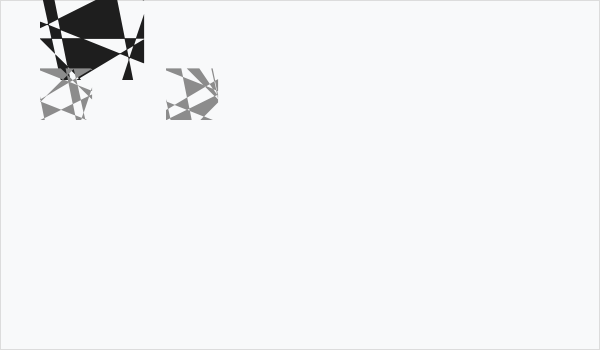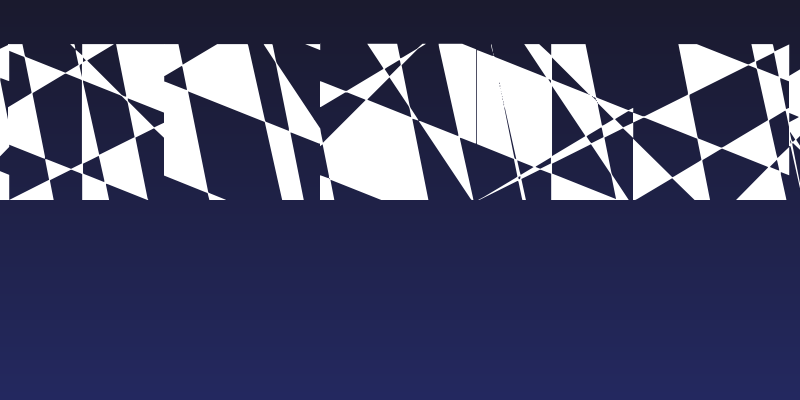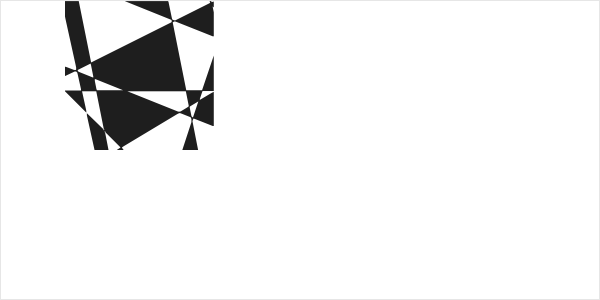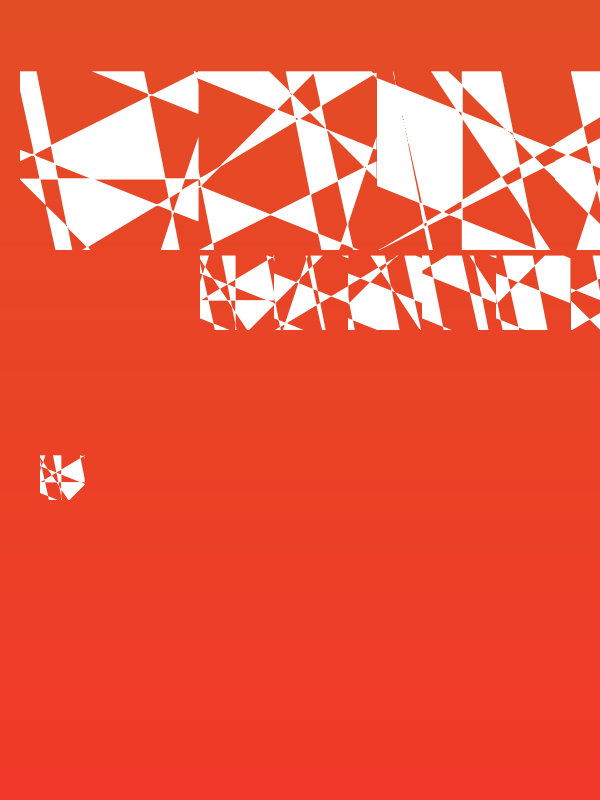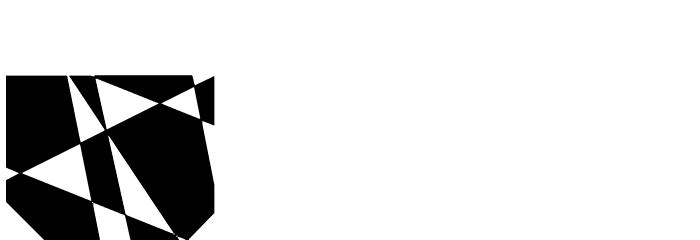
Schizophrenia Font
This font features a highly abstract and fragmented design, with each character composed of intersecting lines and geometric shapes. The letters are almost unrecognizable, creating a chaotic and disjointed appearance. This style is reminiscent of a shattered glass effect, where the forms are broken and scattered, yet still maintain a semblance of their original structure. The overall look is bold and striking, making it suitable for artistic and avant-garde projects. The font's unique style challenges traditional readability, offering a visually intriguing experience.
| Overall Style | Modern, Abstract |
| Use Case | Logos, Artistic displays |
| Proposed Projects | Ideal for experimental art projects, album covers, or avant-garde posters. |